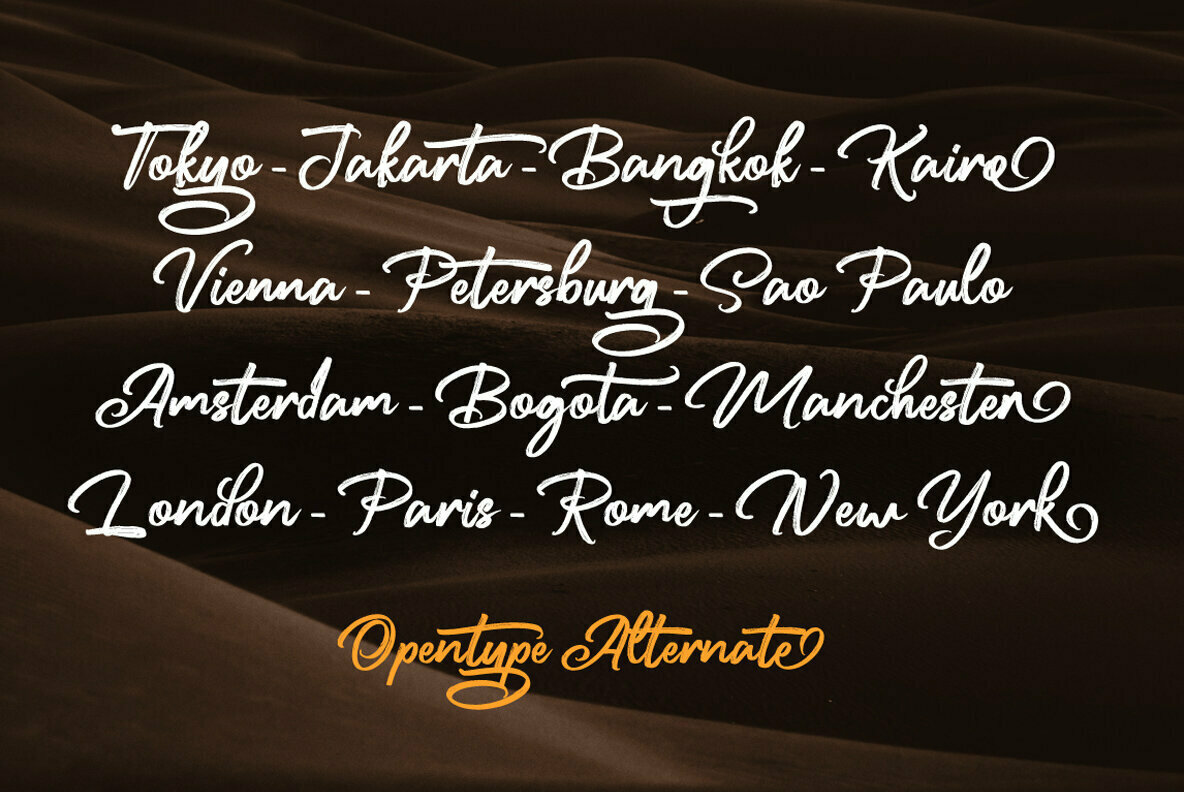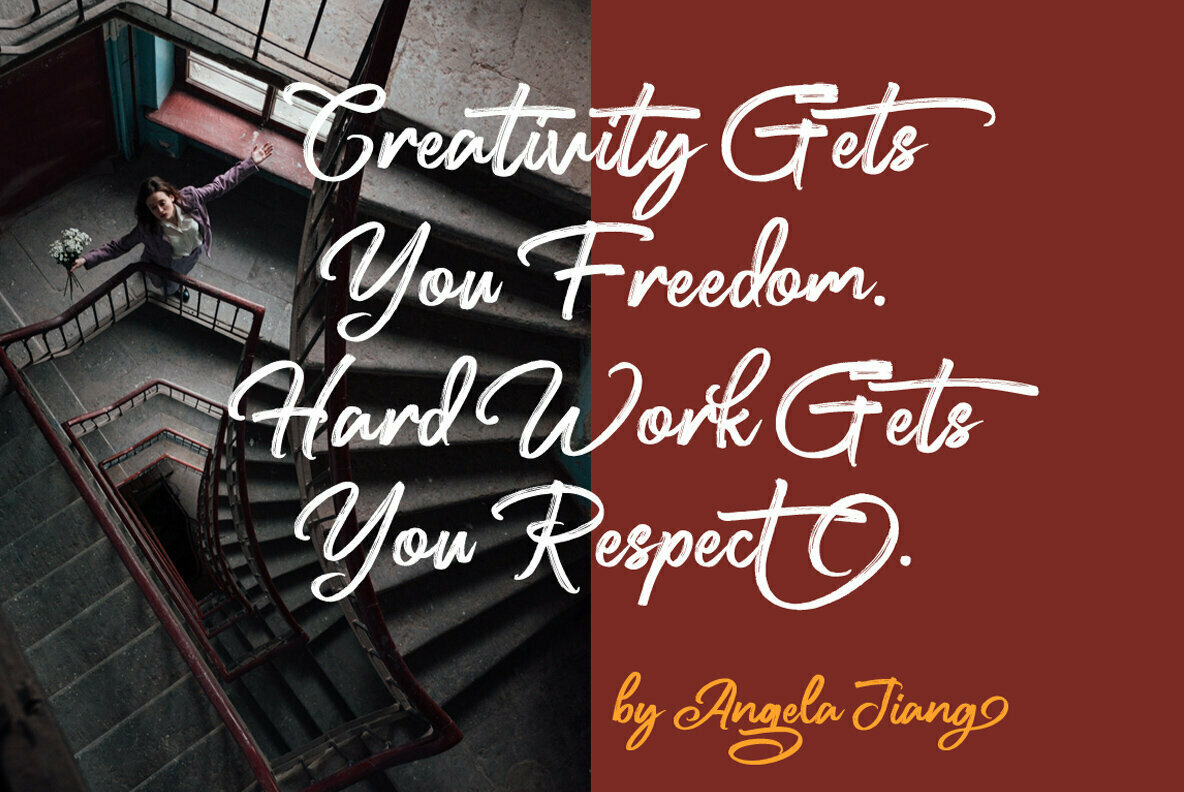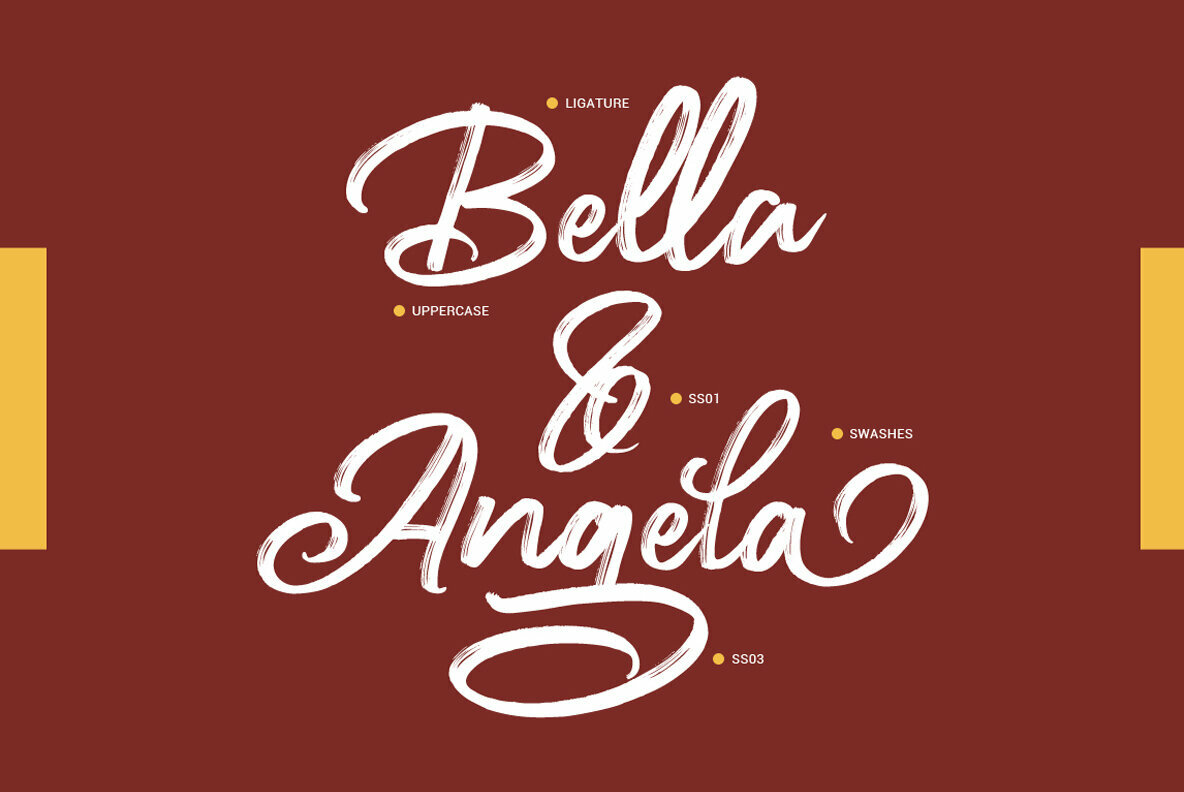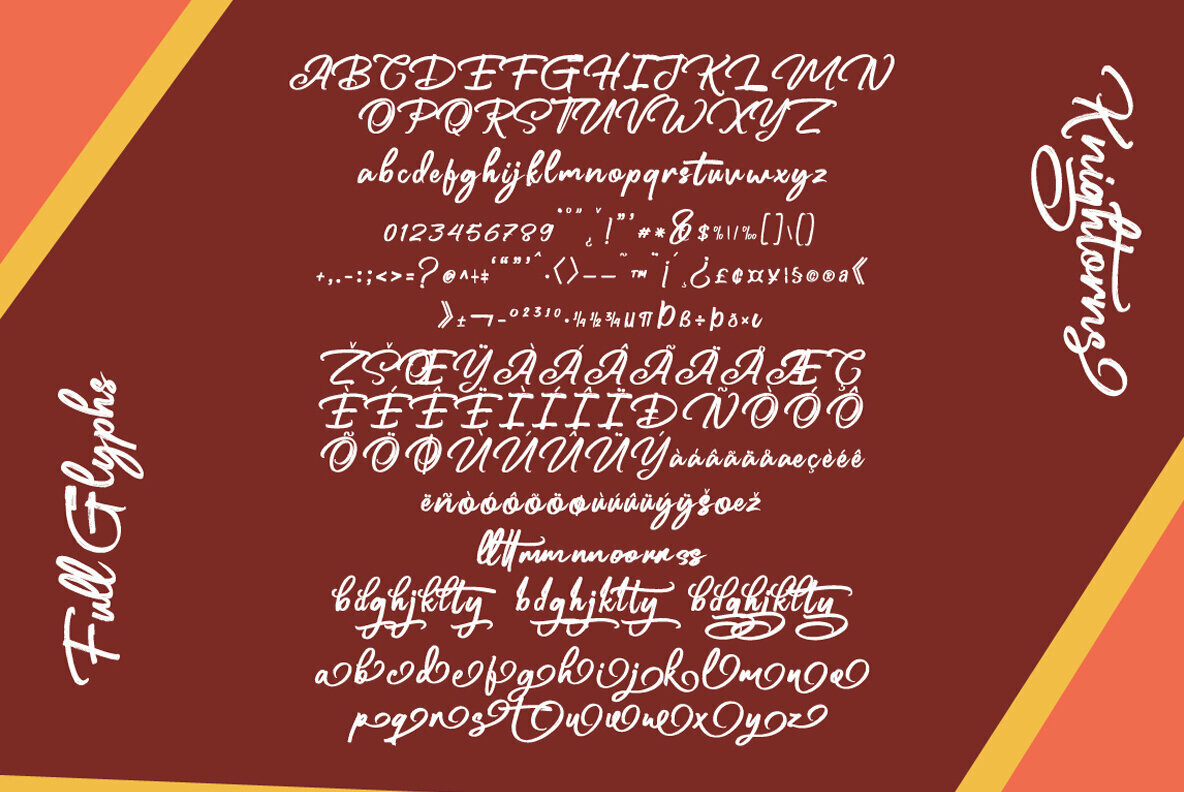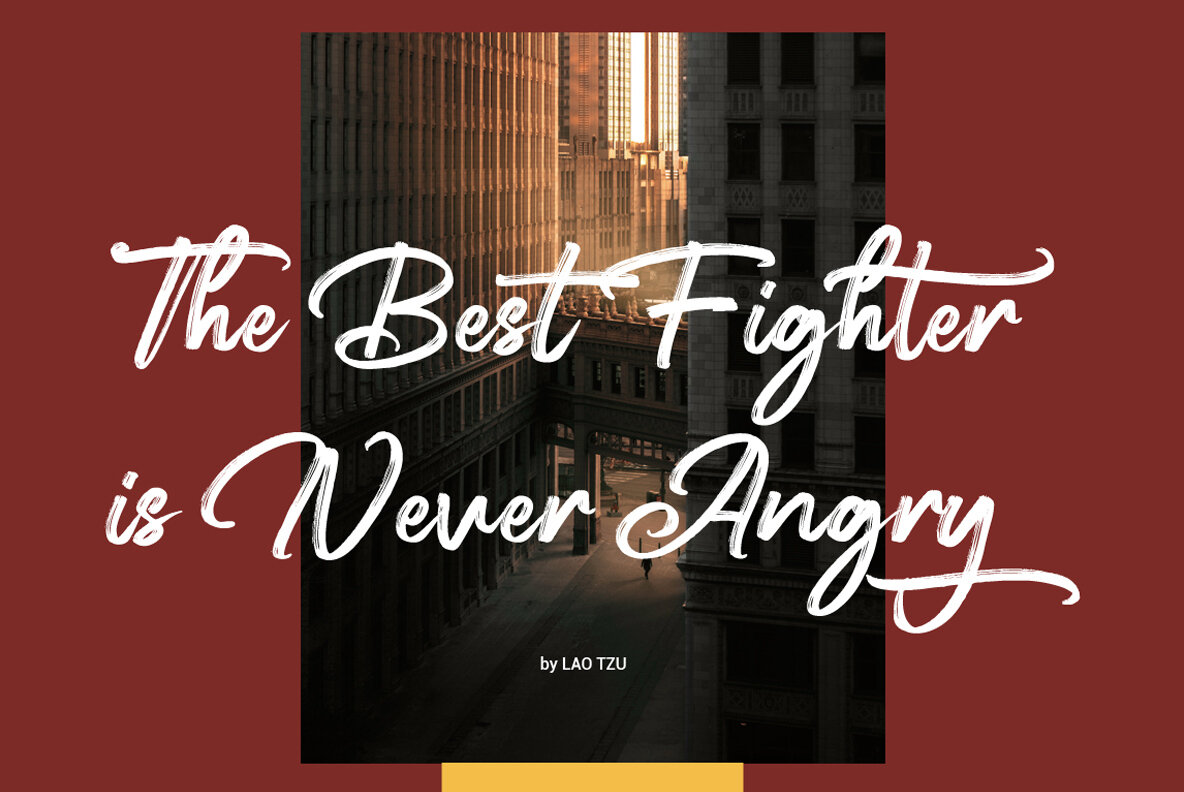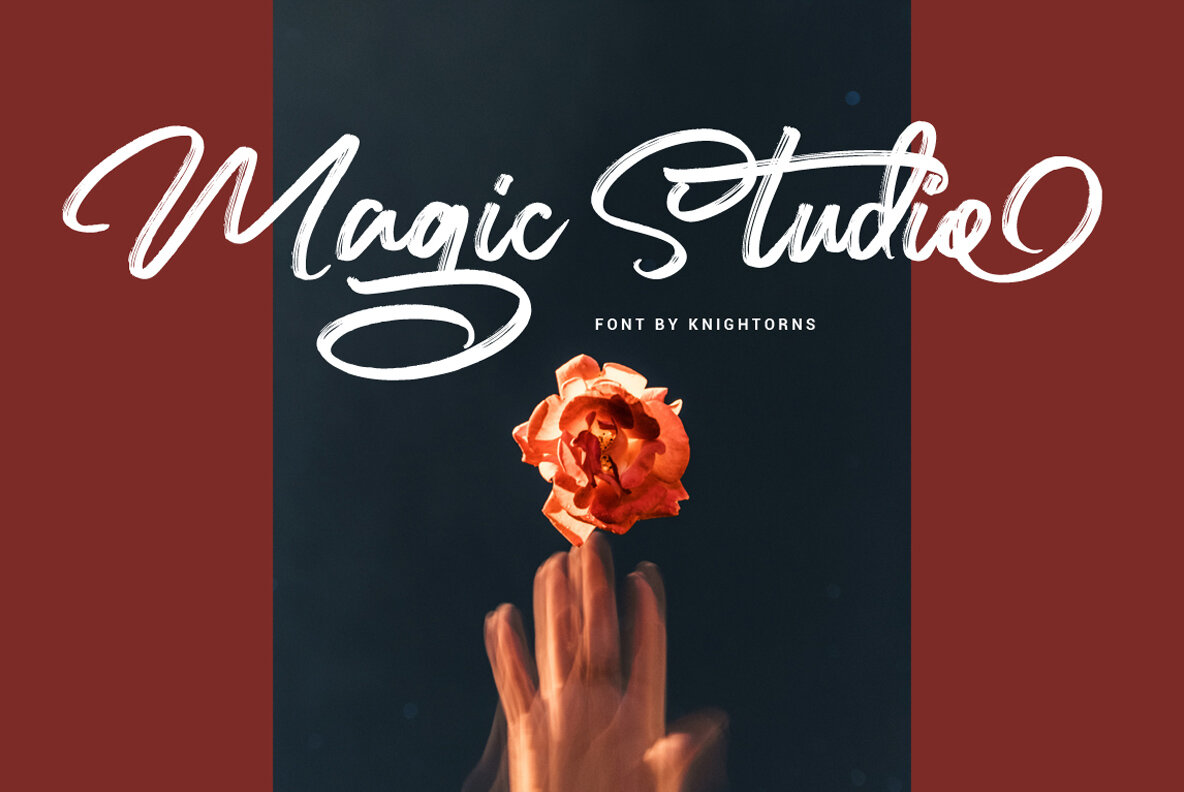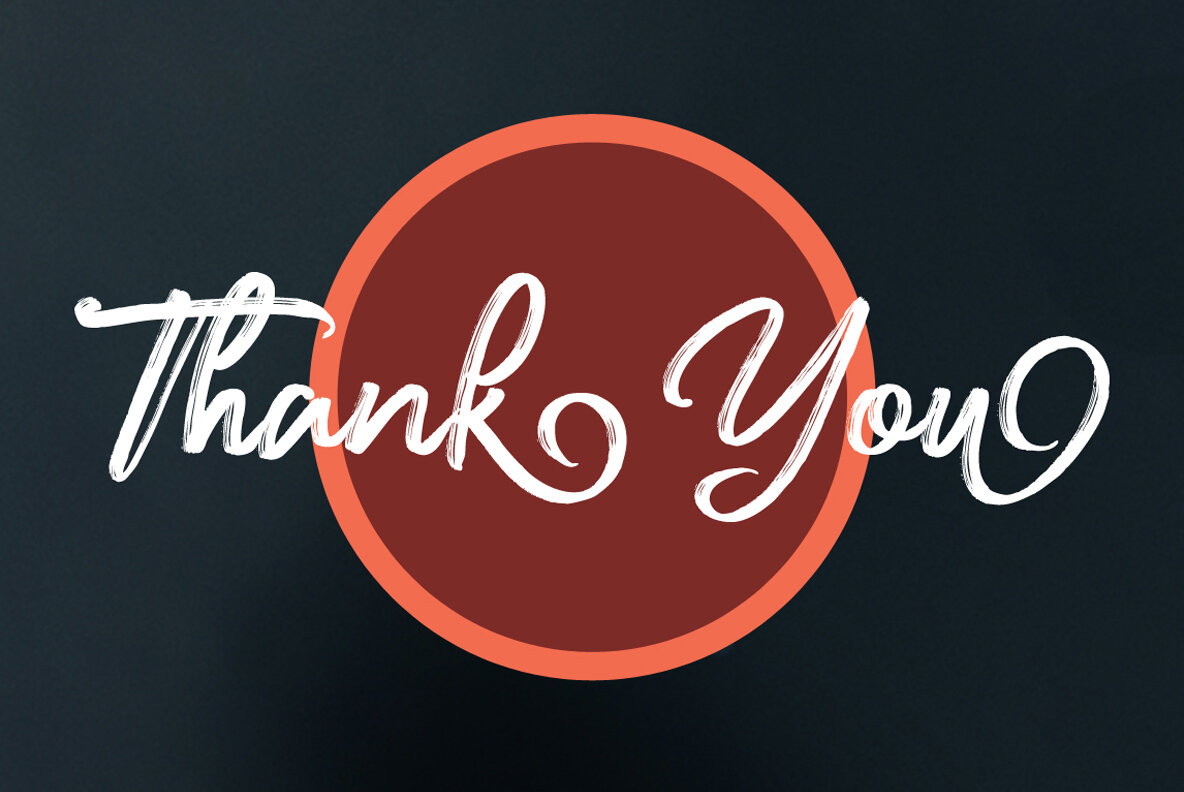
Knightorns
Knightorns offers a captivating brush script font developed with a meticulous handlettering approach. This font, rich with OpenType features, is versatile for various creative projects. From event invitations to captivating apparel designs, Knightorns enhances each composition with its fluid, brush-inspired strokes.Knightorns Brush Script: Artistic Handlettering Style
Incorporate Knightorns into your next project to provide an artistic and engaging visual experience for any audience.